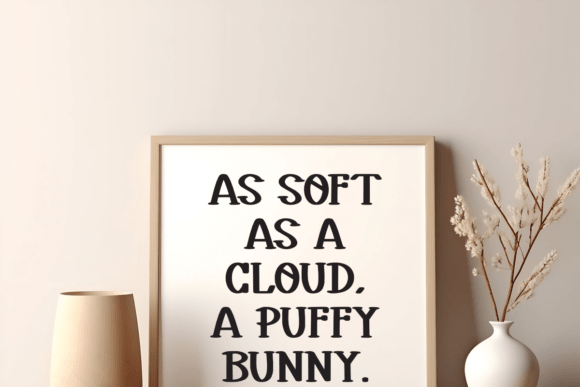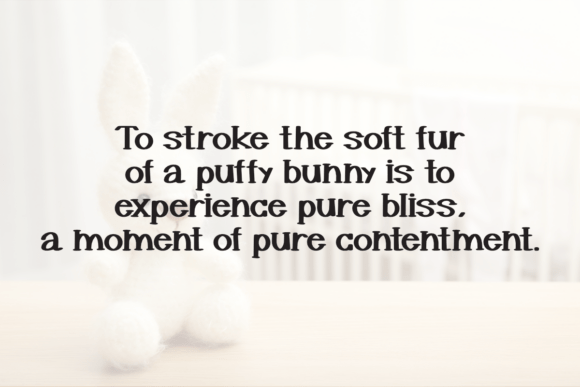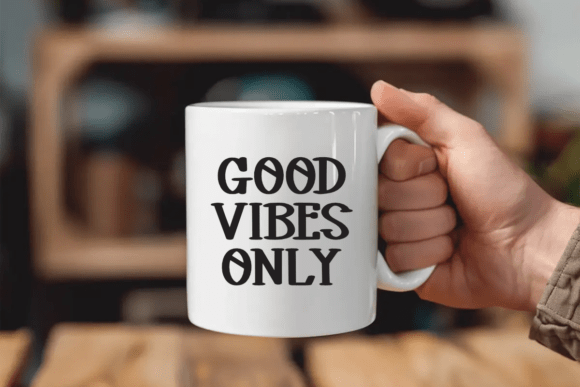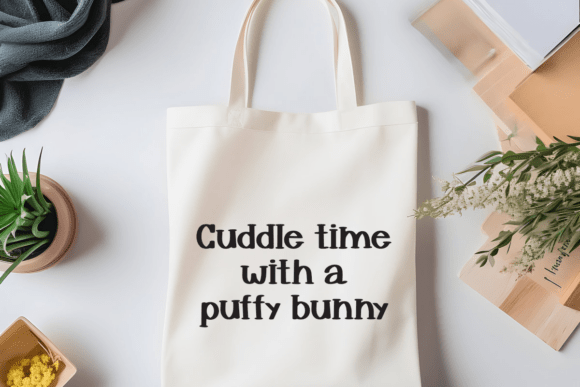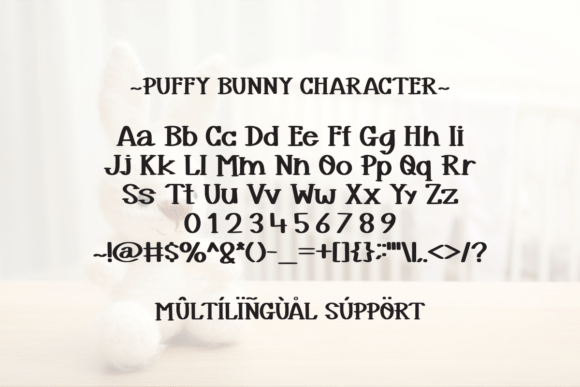
Introduction to Puffy Bunny Font Font
Fonts play a crucial role in design, and the Puffy Bunny Font font is a typeface that brings both character and versatility to any project. Whether you’re working on a branding project, a website, or a print design, the Puffy Bunny Font font offers a unique style that can elevate your work.
Puffy Bunny is a charming playful slab serif font with soft curves and a bouncy personality.
Its whimsical letterforms make it ideal for childrenβs products, Easter cards, logos, and anything that calls for a touch of joyful friendliness .
Key Features of Puffy Bunny Font Font
Why Choose Puffy Bunny Font Font?
The Puffy Bunny Font font is more than just a typeface β it’s a design tool that helps you communicate your message with style and clarity. Its unique character set and versatile design make it suitable for a wide range of applications, from elegant invitations to bold headlines.
With its carefully crafted letterforms and balanced proportions, the Puffy Bunny Font font ensures readability and visual appeal across all mediums.
What makes Puffy Bunny Font font special?
The Puffy Bunny Font font stands out with its unique design, exceptional readability, and versatility across various design applications.